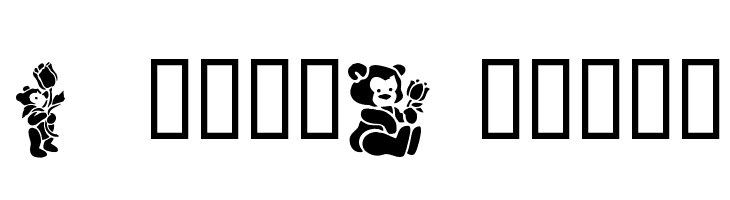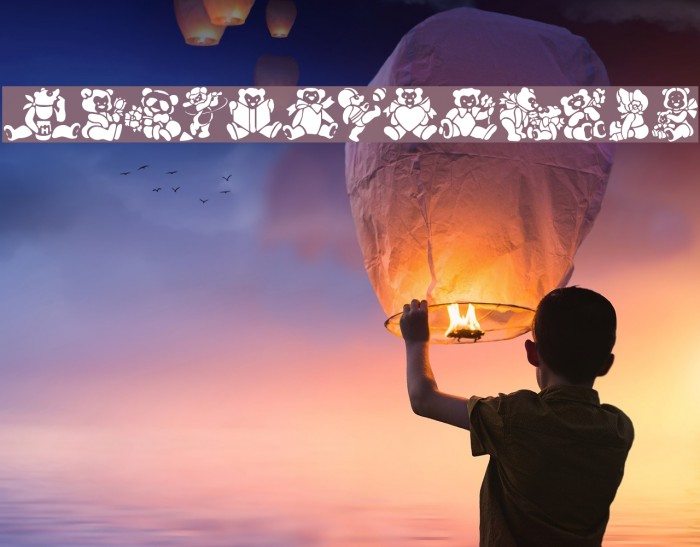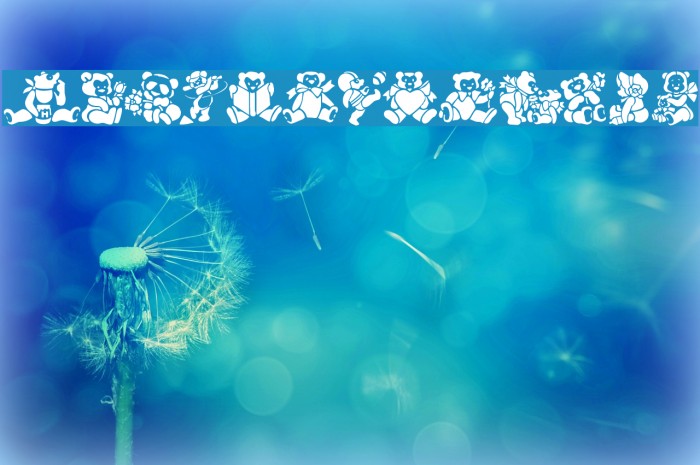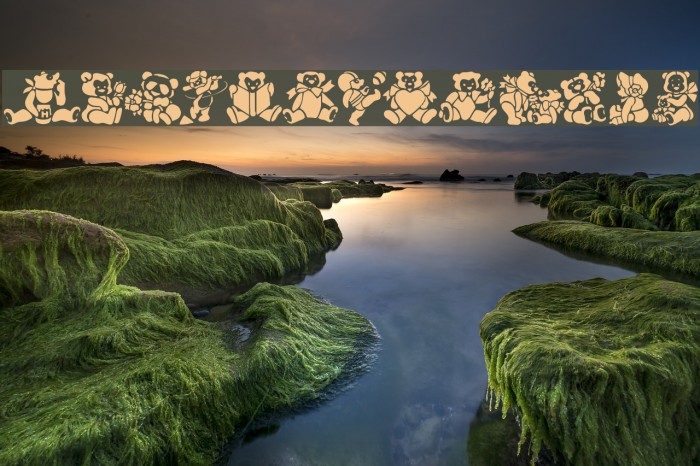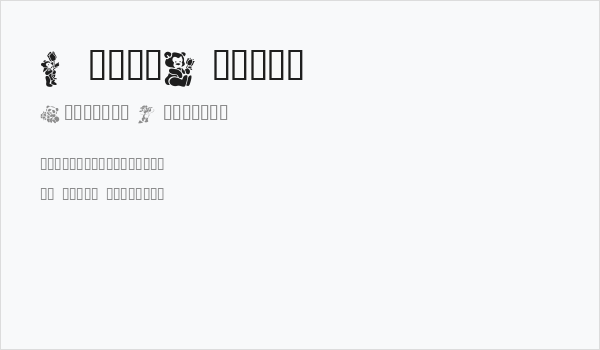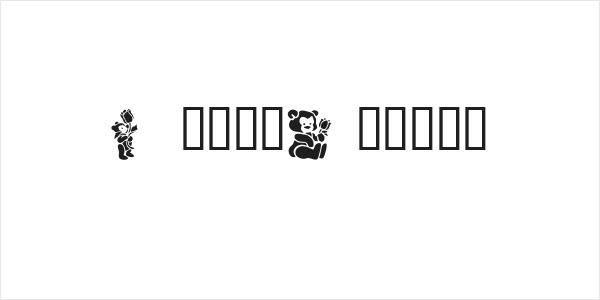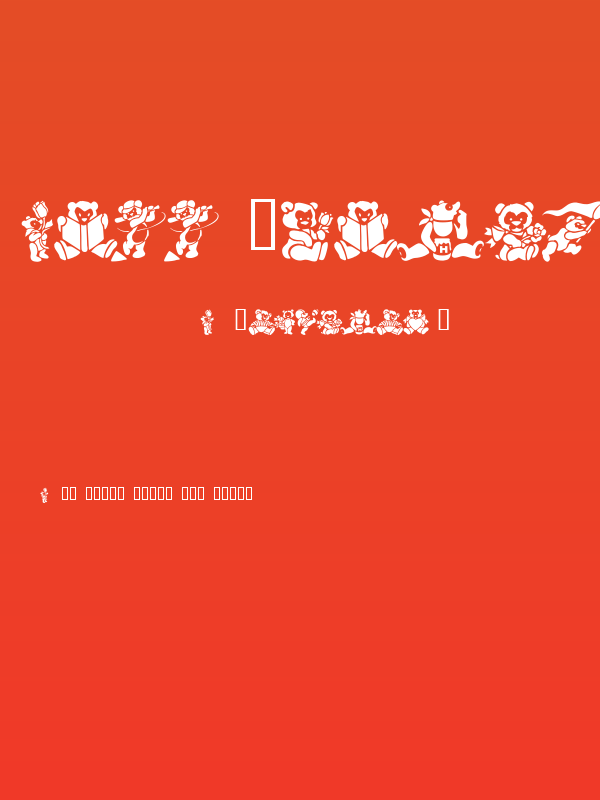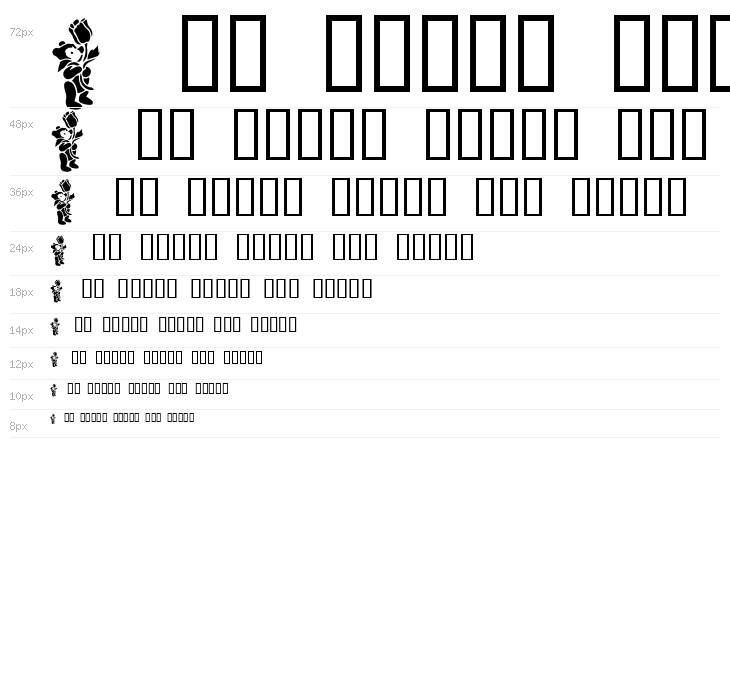
TeddyBears2 Font
TeddyBears2 Description
This whimsical and playful font features a series of teddy bear illustrations, each uniquely posed and engaging in various activities. The characters are not traditional letters but rather charming bear figures, making it ideal for decorative purposes. The font exudes a sense of fun and creativity, perfect for projects that aim to capture a youthful and joyful spirit. The detailed bear illustrations are consistent in style, offering a cohesive look across the set.
| Use Case | Logos, Decorative headings, Children's materials |
| Proposed Projects | Ideal for children's book covers, playful invitations, nursery decor, and any project requiring a whimsical touch. |